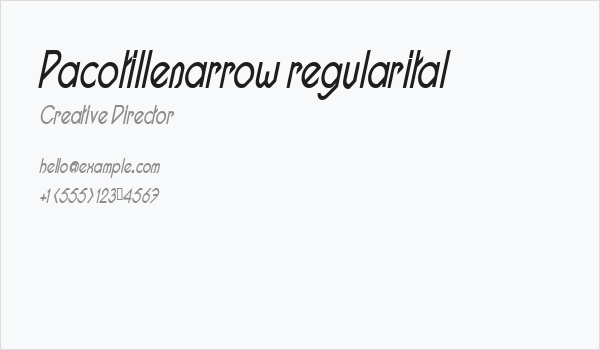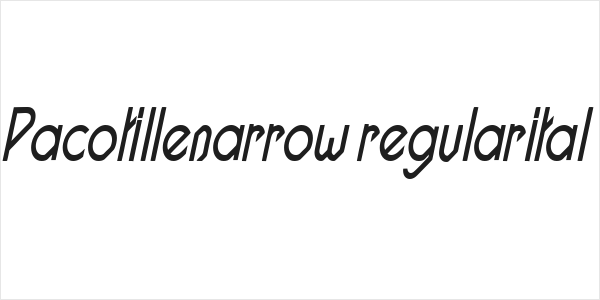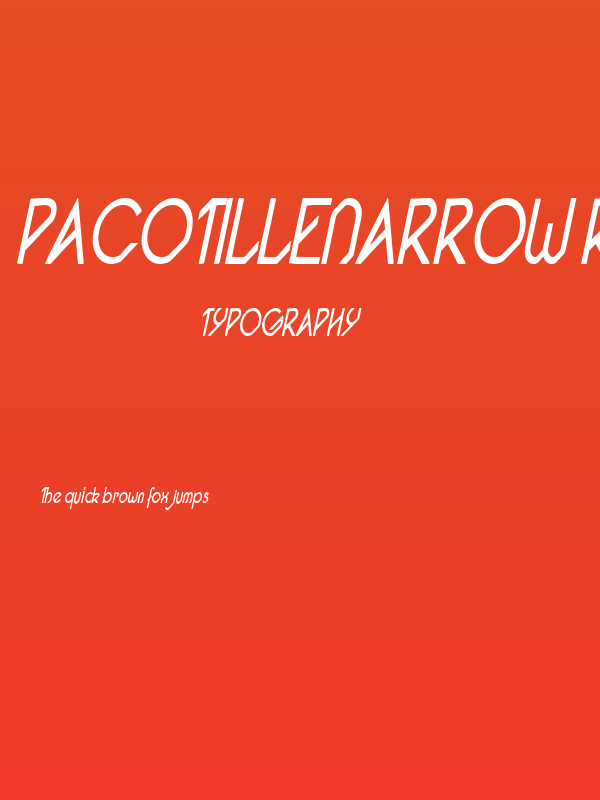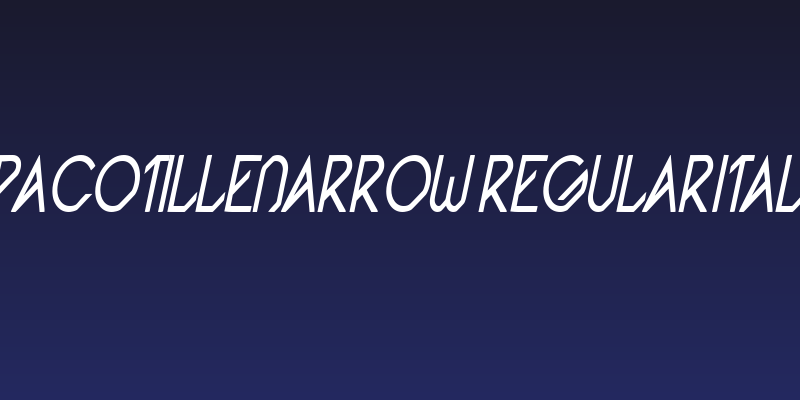
Pacotillenarrow regularital Font
Pacotillenarrow regularital Description
This font features a unique, slanted style that combines elements of both modern and decorative design. The characters are narrow and elongated, giving a sleek and sophisticated appearance. The uppercase letters have a distinct angularity, while the lowercase letters maintain a consistent flow with subtle curves. Numbers and special characters are designed to match the overall aesthetic, ensuring a cohesive look. The font's italic nature adds a dynamic and energetic feel, making it suitable for creative and contemporary projects.
| Proposed Projects | Ideal for branding, fashion magazines, modern art posters, and dynamic web design. |